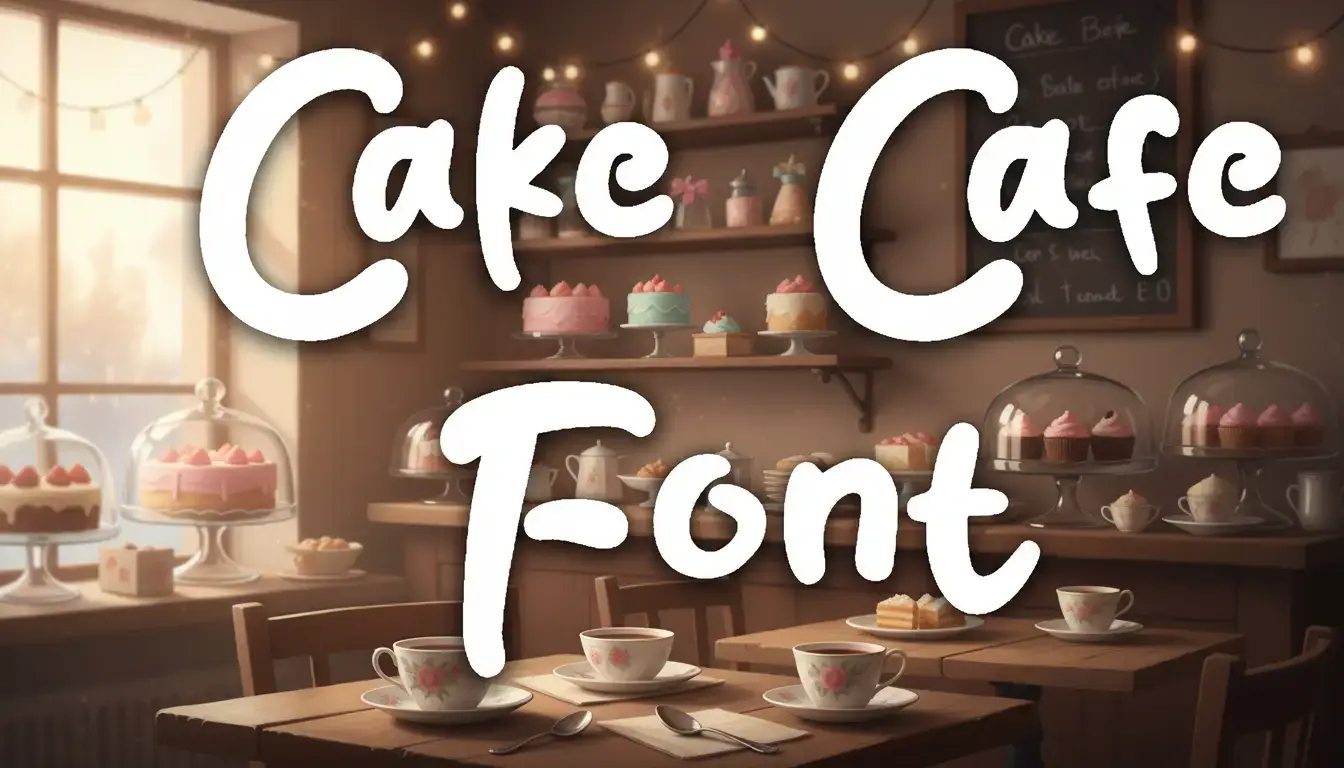
Cake Cafe Font
Cake Cafe
Cake Cafe is a fancy font created by Khurasan. It's a decorative display font with plenty of personality, made to grab attention. It's a free download, and you can try it with your own text in the preview above first.
What You Can Type With Cake Cafe
With complete upper and lowercase letters and all ten digits, Cake Cafe is ready for real wording, not just a single headline. Common punctuation such as &, !, ? and @ is included as well. It doesn't include accented letters such as é or ñ, which makes it an English-only font.
Where Cake Cafe Works Best
Designers usually reach for fonts like Cake Cafe when they're making posters, logos and eye-catching headlines. Use it for one standout word or headline and let simpler fonts handle the rest.
Does Cake Cafe support accented letters?
No. Cake Cafe has no accented letters such as é, ñ or ü, so it's best for English text.